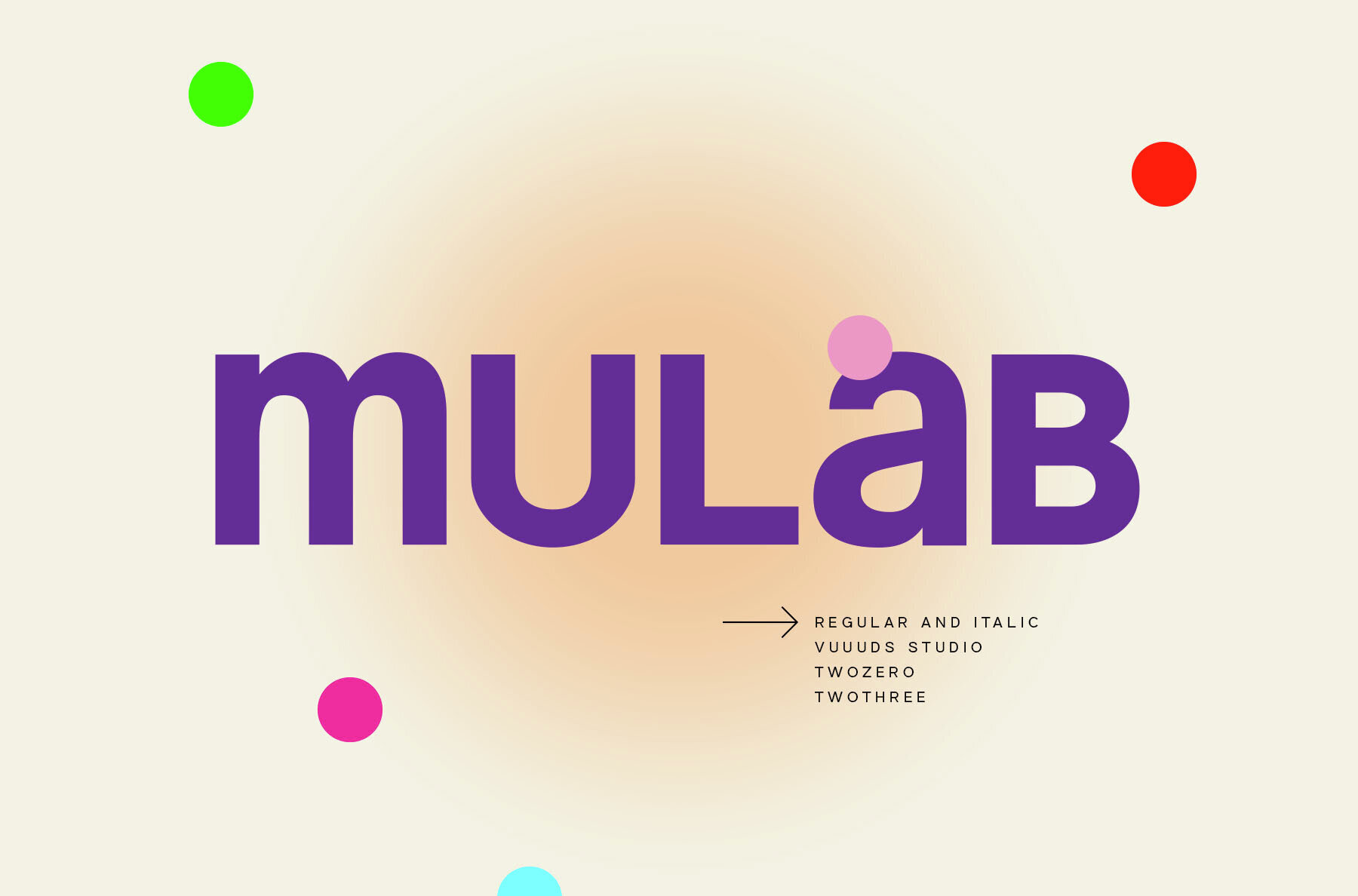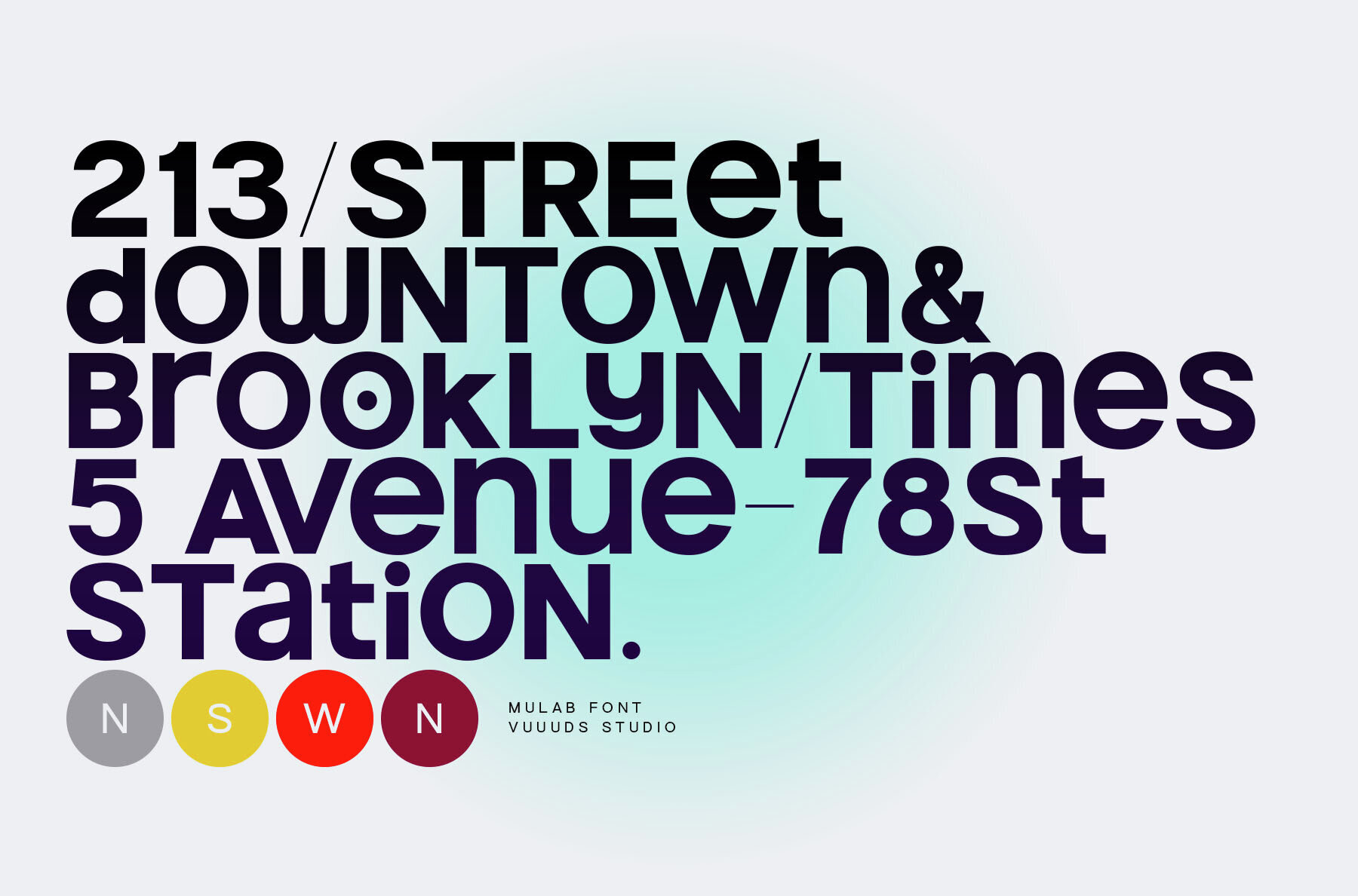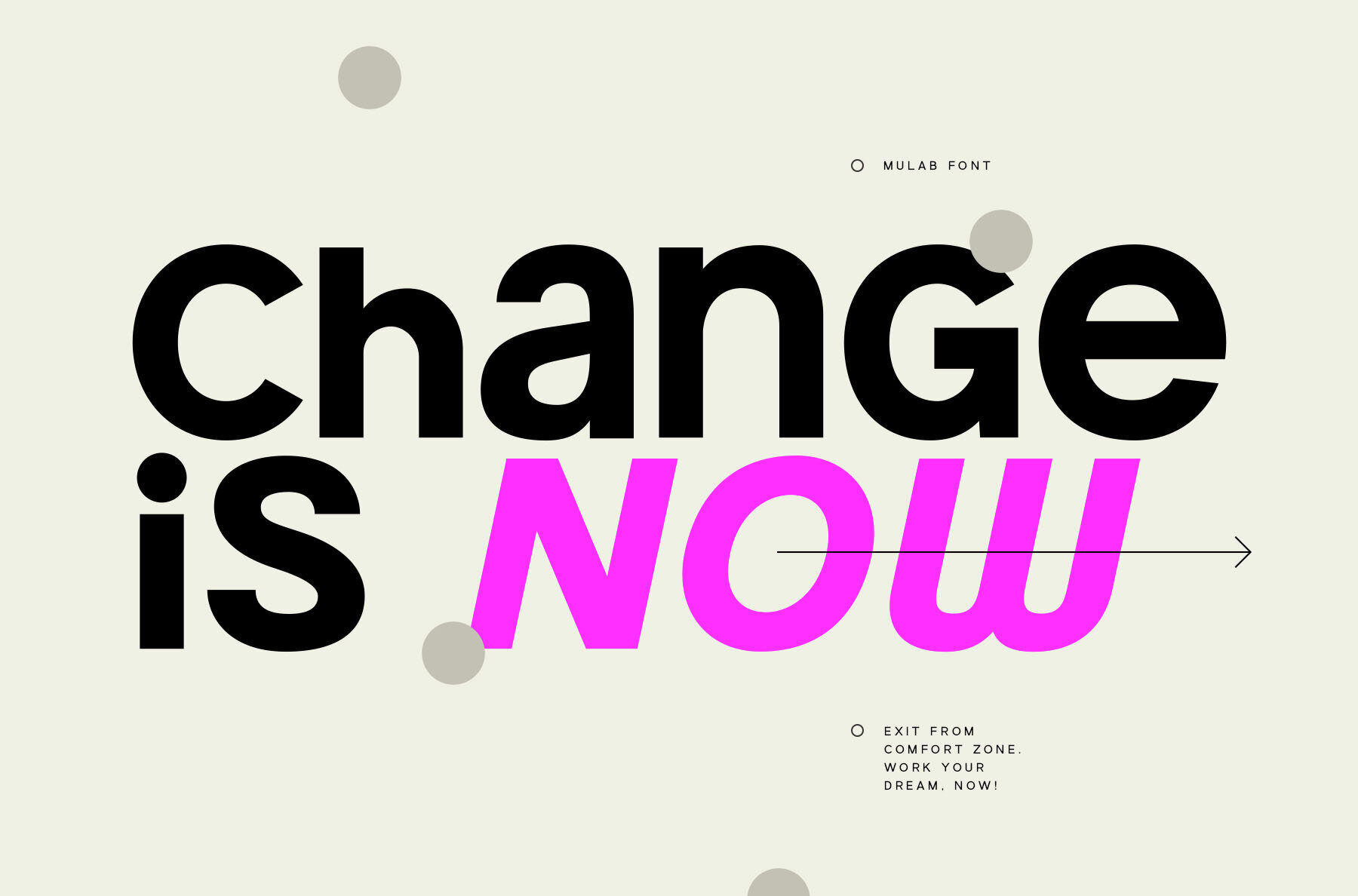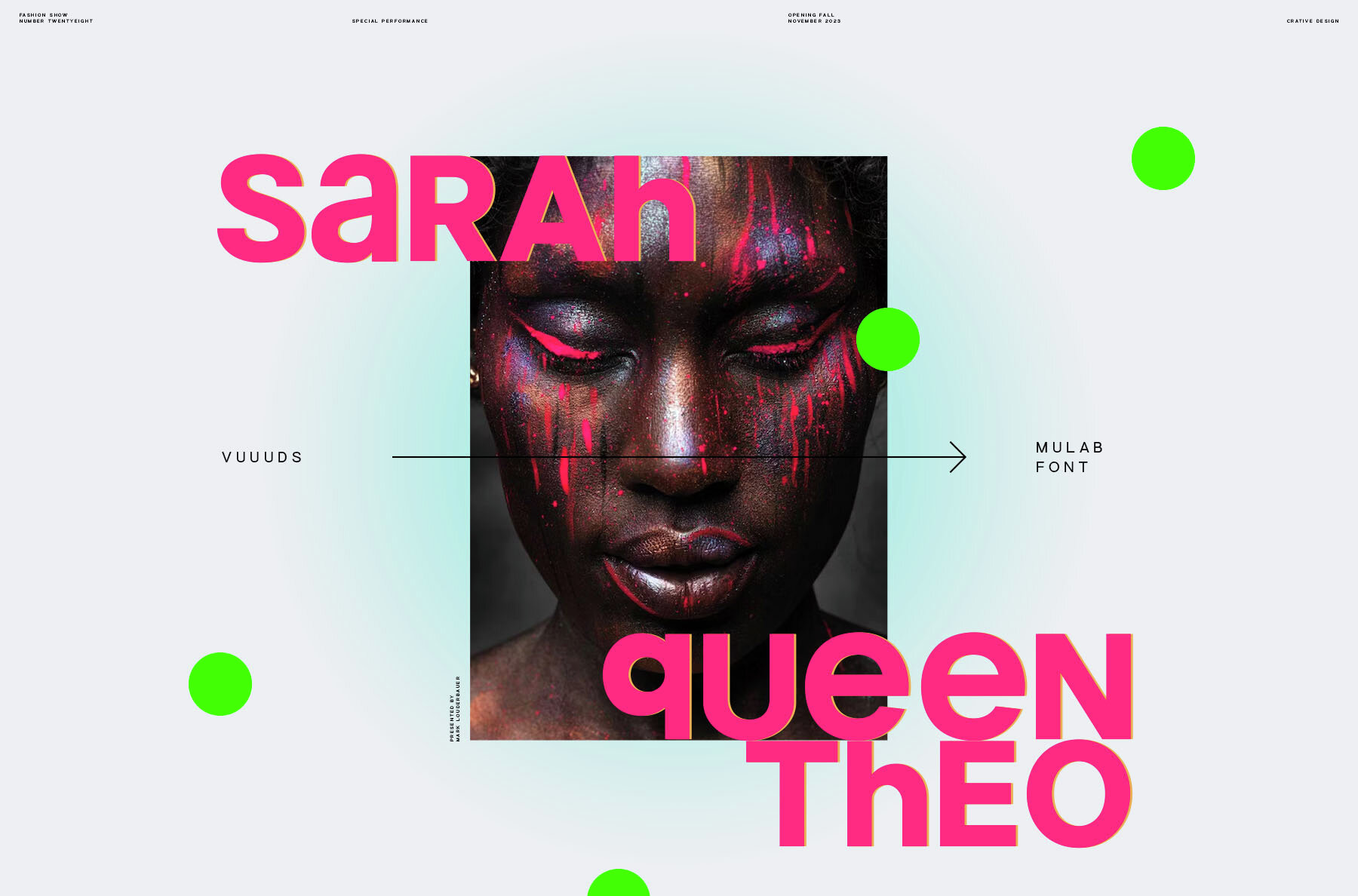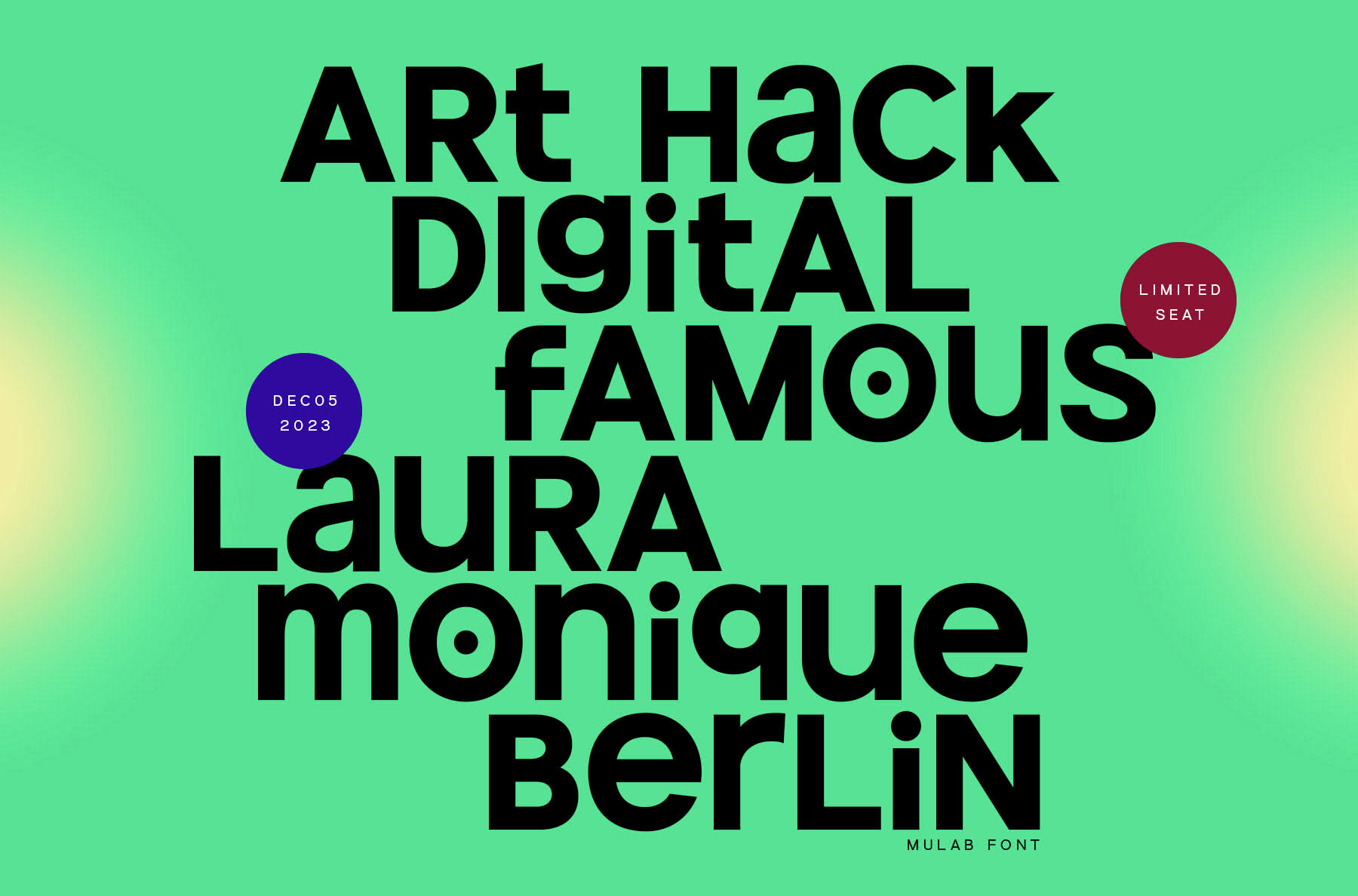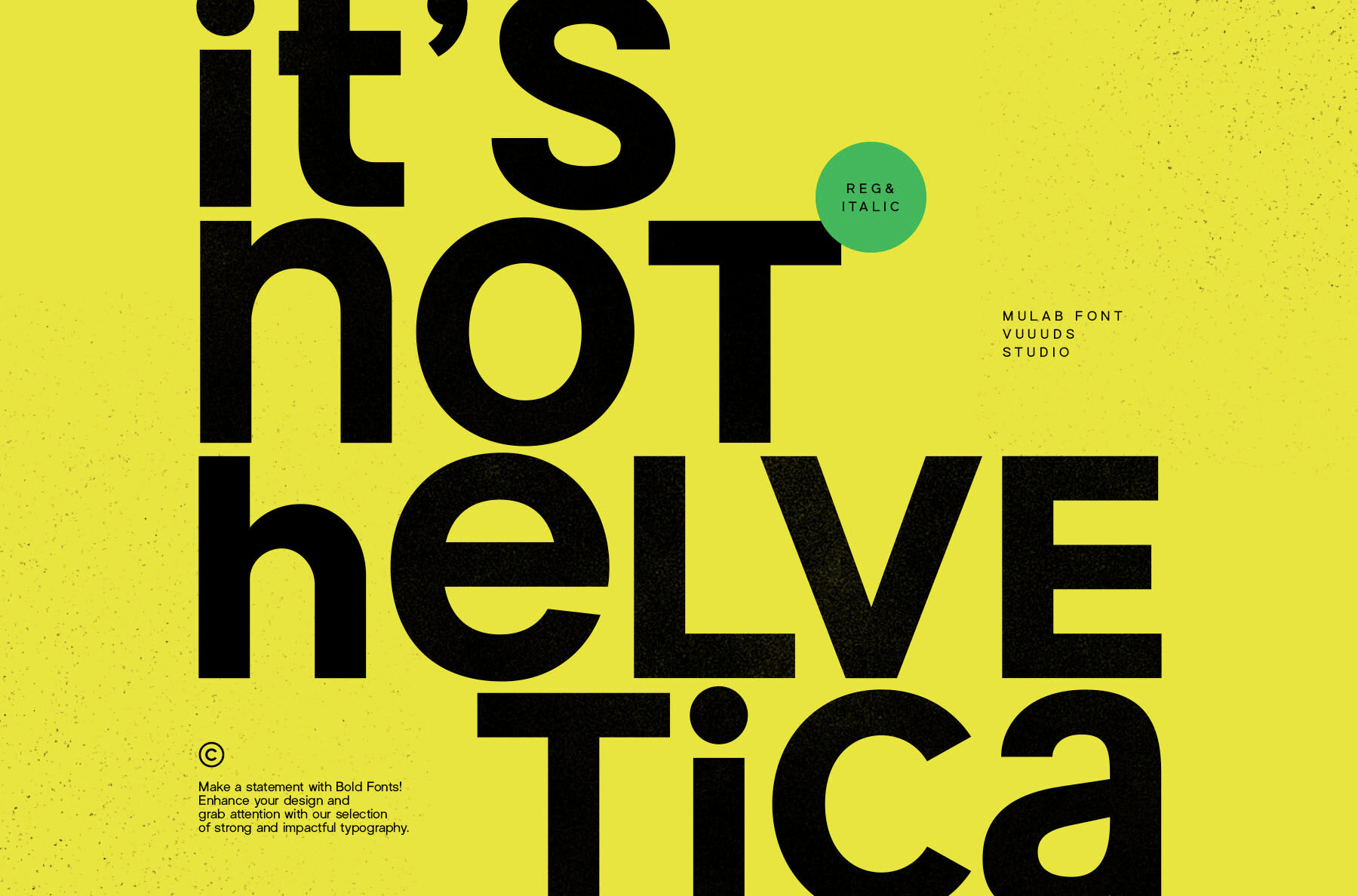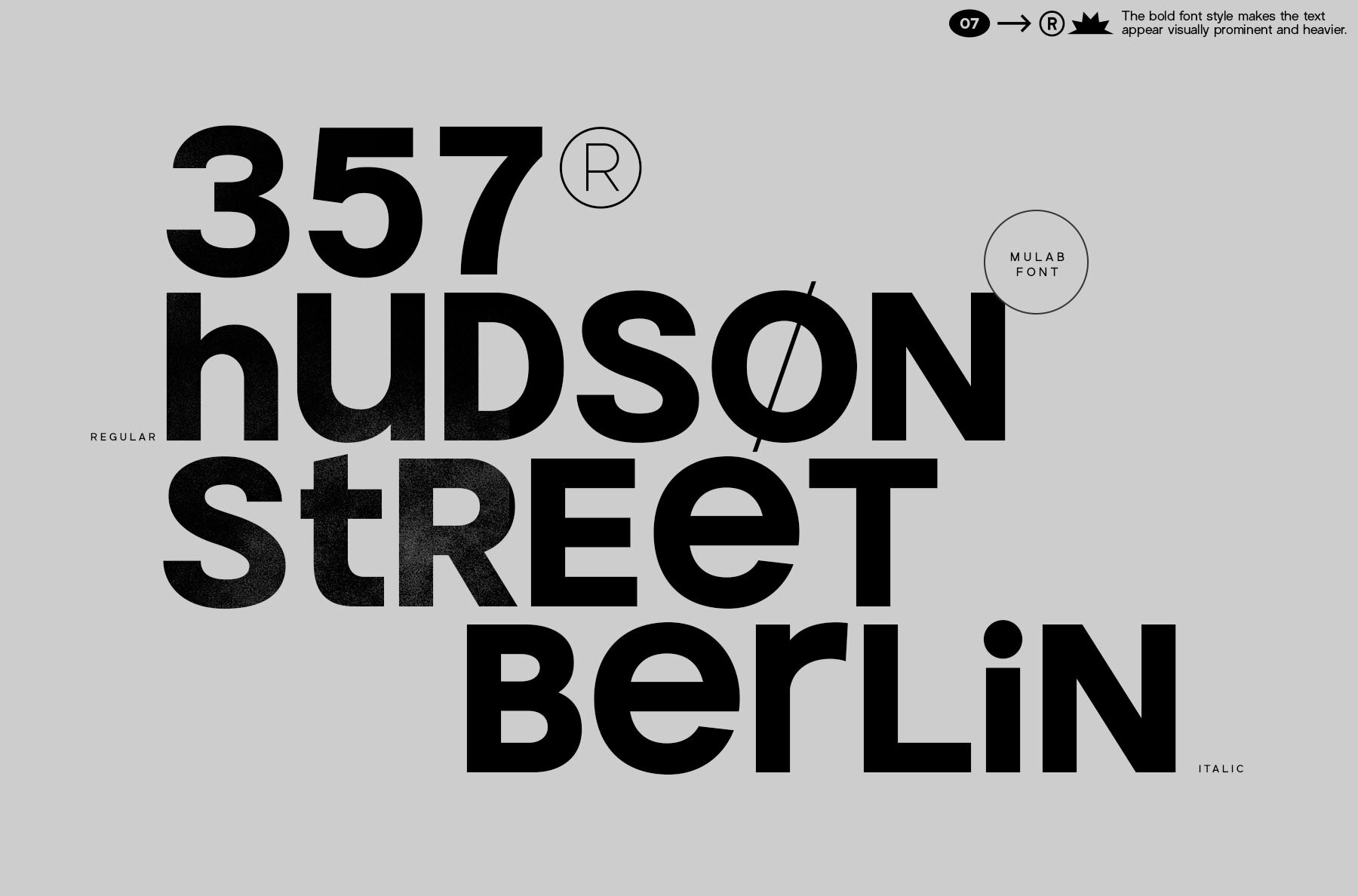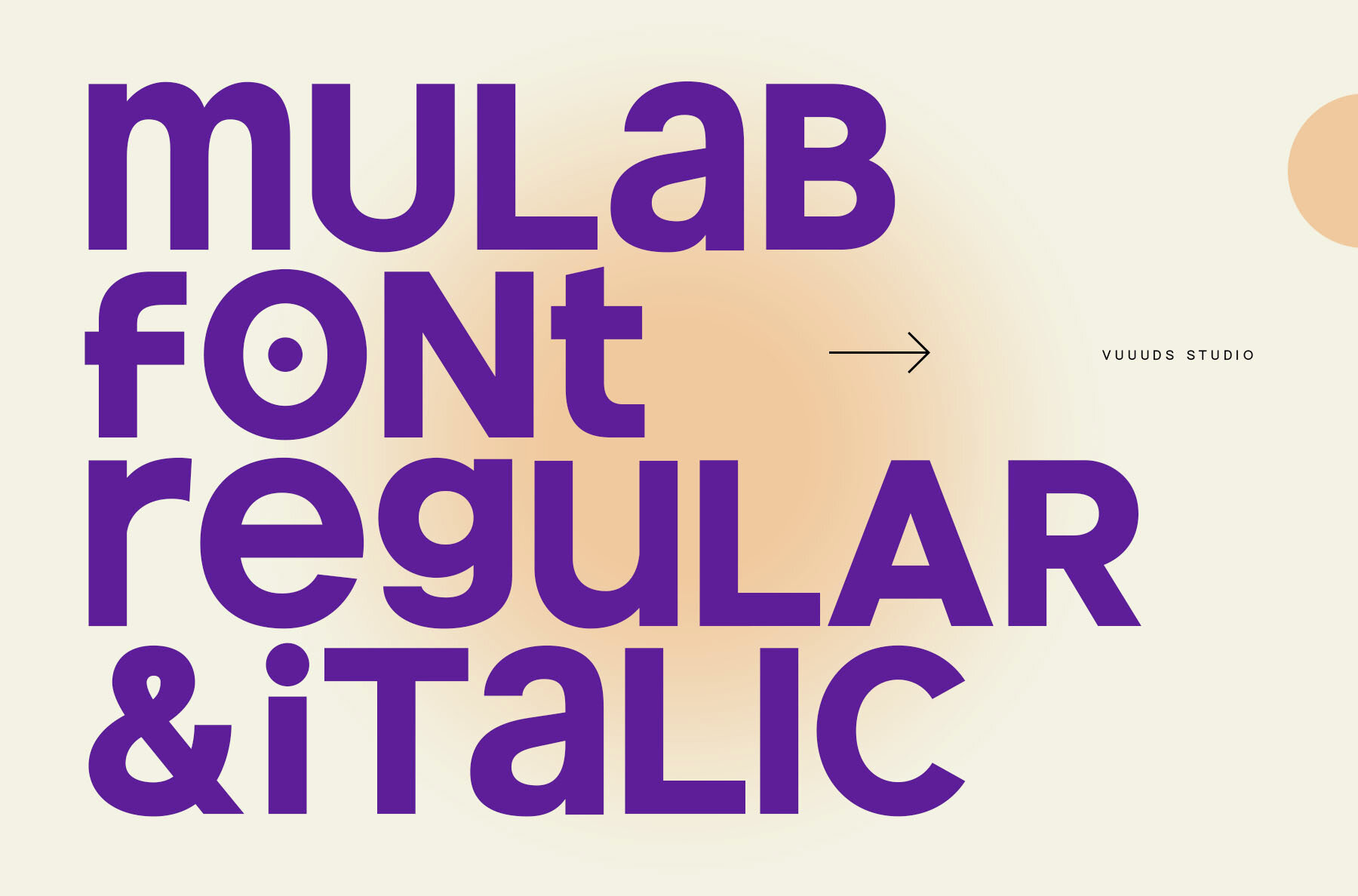
Mulab Font
Mulab is a modern experimental sans serif font that offers a unique visual style. It features lowercase glyphs that share the same height as uppercase characters, creating a distinctive appearance. This font includes beautiful alternate glyphs, adding versatility to your design projects. Mac users can access these through Font Book, while Windows users can use the Windows Character Map. A tutorial link is provided in the zip file for guidance.Mulab: A Modern Experimental Sans Serif
Features and Customization